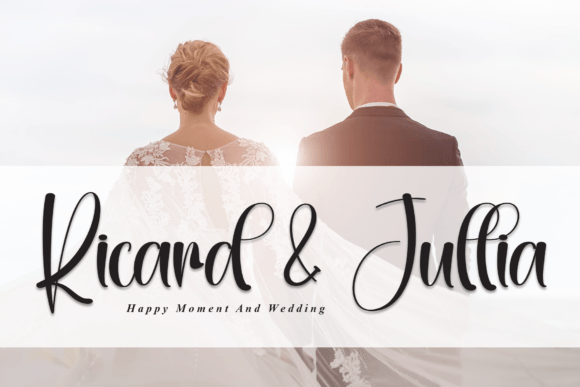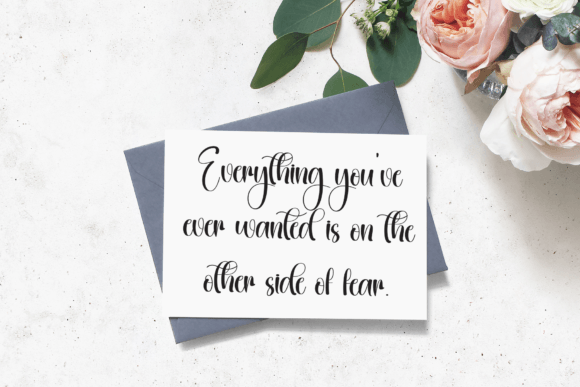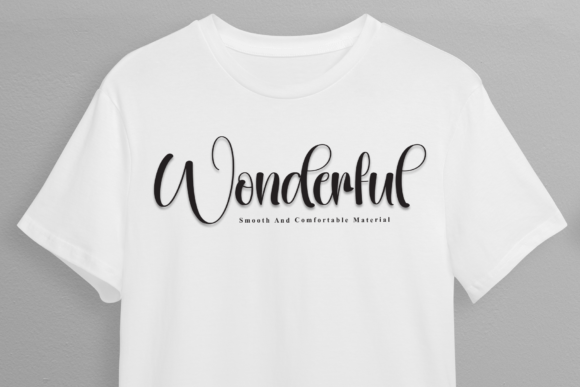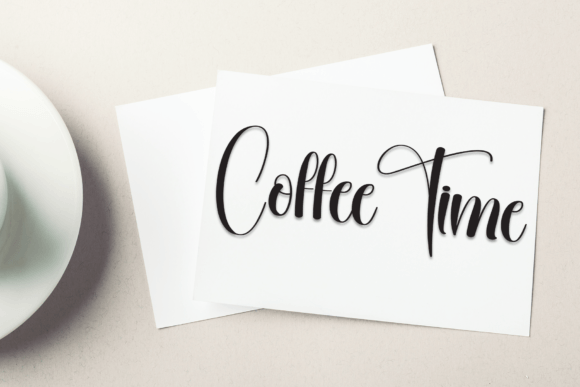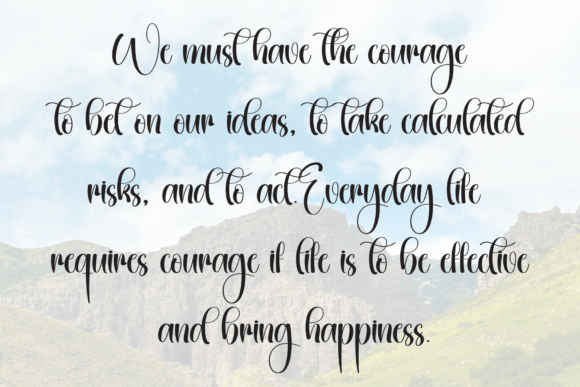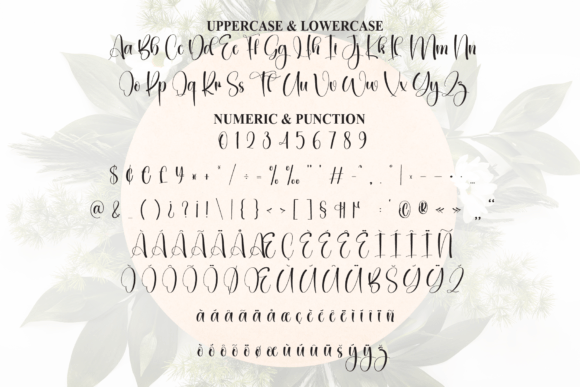
Introducing Coasters Font: A Charming Handwritten Style for Your Designs
Are you looking for a font that adds a personal touch to your designs? Look no further than Coasters Font, a lovely handwritten font that blends bold letters with graceful lines. With its charming, casual style, Coasters is perfect for designers and crafters who want to create unique and eye-catching projects.
The Characteristics of Coasters Font
Coasters Font is a handwritten font that exudes a sense of warmth and friendliness. Its bold letters are carefully crafted to create a sense of confidence and stability, while its graceful lines add a touch of elegance and sophistication. The font’s casual style makes it perfect for a wide range of design projects, from invitations and greeting cards to posters and social media graphics.
What Makes Coasters Font Special?
So, what sets Coasters Font apart from other fonts? Here are a few key features that make it a standout:
- Unique letterforms: Coasters Font features unique and carefully crafted letterforms that are both bold and elegant.
- Graceful lines: The font’s lines are smooth and flowing, adding a touch of sophistication to your designs.
- Charming style: Coasters Font has a charming, casual style that’s perfect for creating personal and eye-catching designs.
- Versatile: The font is versatile and can be used for a wide range of design projects, from digital graphics to print materials.
How to Use Coasters Font in Your Designs
Coasters Font is easy to use and can be incorporated into your designs in a variety of ways. Here are a few ideas to get you started:
- Invitations and greeting cards: Use Coasters Font to create personalized invitations and greeting cards that are sure to impress.
- Posters and flyers: Add a touch of elegance to your posters and flyers with Coasters Font.
- Social media graphics: Use Coasters Font to create eye-catching social media graphics that will help your brand stand out.
- Branding and packaging: Coasters Font is perfect for creating unique and memorable branding and packaging designs.
Tips for Getting the Most Out of Coasters Font
Here are a few tips for getting the most out of Coasters Font:
- Experiment with different colors: Coasters Font looks great in a variety of colors, so don’t be afraid to experiment and find the perfect hue for your design.
- Mix and match with other fonts: Coasters Font pairs well with other fonts, so try mixing and matching it with different styles to create a unique look.
- Use it for headlines and titles: Coasters Font is perfect for headlines and titles, where its bold and elegant style can really shine.
Key Features of Coasters Font
| Font Style | Handwritten |
| Letterforms | Bold and elegant |
| Lines | Smooth and flowing |
| Style | Charming and casual |
| Versatility | Suitable for a wide range of design projects |